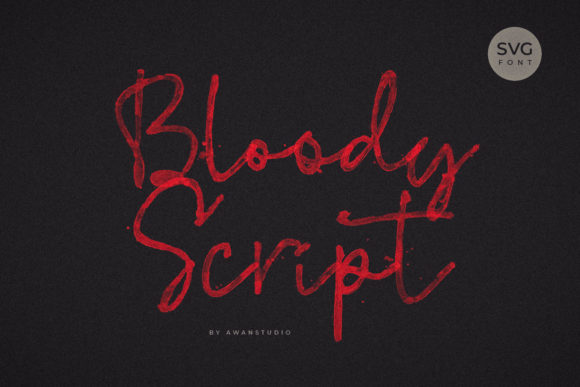
The Bloody Script Font: A Spooky Addition to Your Design Arsenal
I’ll never forget the time I was working on a Halloween-themed project for a client, and I just couldn’t find the right font to capture the spooky essence. The client wanted something that would make their audience shiver, but I was stuck with the same old boring fonts. That’s when I stumbled upon the Bloody Script font, and it was love at first sight! 💀
The Bloody Script is an amazing horror font, perfected with a look-alike blood texture. Included are a regular script font and an SVG version, making it versatile for various design applications. In this article, I’ll share my honest review, a step-by-step guide on how to use it, and some valuable insights into similar fonts and design inspiration.
- 💉 The Bloody Script font has a unique, eerie feel that’s perfect for horror-themed designs, Halloween projects, or even just adding a touch of edginess to your work.
- 🎨 The font comes in two versions: a regular script font and an SVG version, making it suitable for various design applications, from digital to print.
- 👍 The font is well-designed, with intricate details that resemble blood texture, giving it a realistic and creepy effect.
- 🤔 The font might be a bit too ornate for very small text sizes or body text, so it’s best used for headlines or titles.
- ⚠️ Some users might find the blood texture a bit too intense or overpowering, so it’s essential to use it judiciously.
The Designer Inspiration Behind the Bloody Script Font
The Bloody Script font was inspired by the dark, eerie atmosphere of horror movies and haunted houses. The designer wanted to create a font that would capture the essence of fear and unease, while also being visually striking and memorable.
The designer’s inspiration came from classic horror movies, abandoned asylums, and creepy folklore. The result is a font that’s both terrifying and mesmerizing, perfect for designers who want to add a touch of horror to their work.
Q: Is the Bloody Script font suitable for body text?
A: No, the Bloody Script font is best used for headlines or titles, as it might be too ornate for small text sizes or body text.